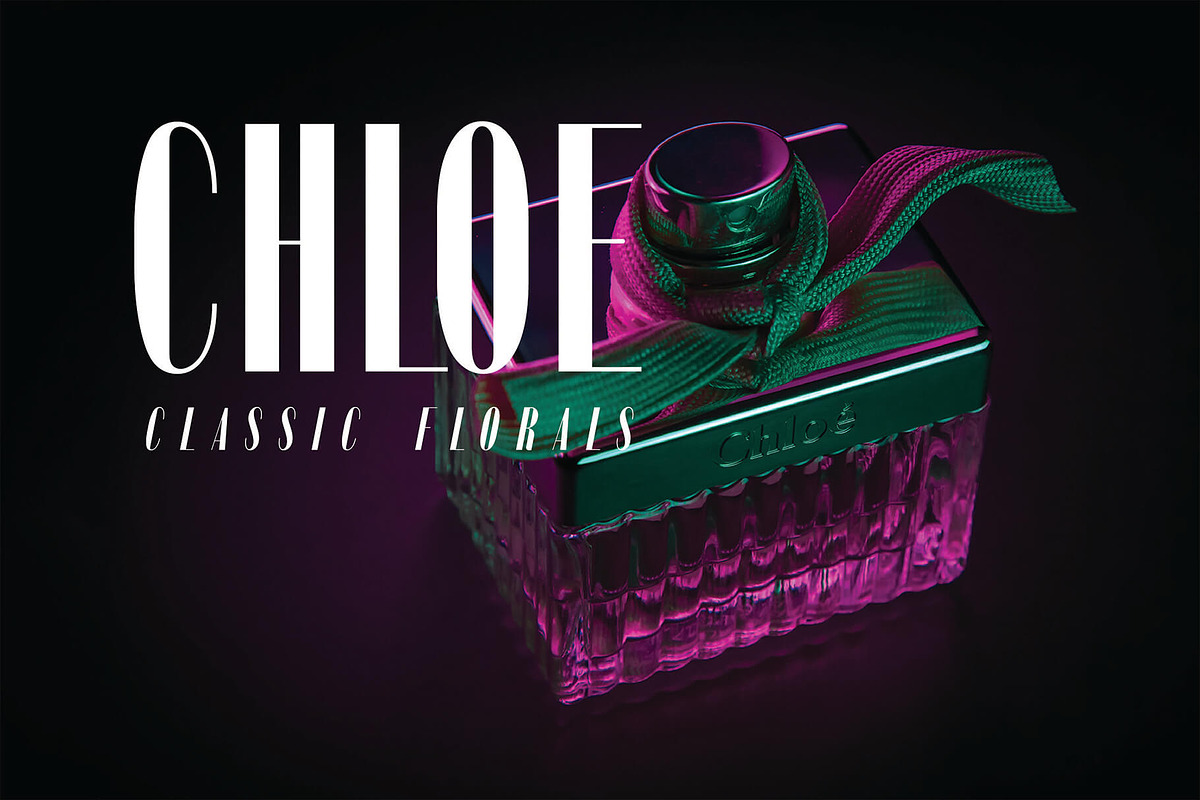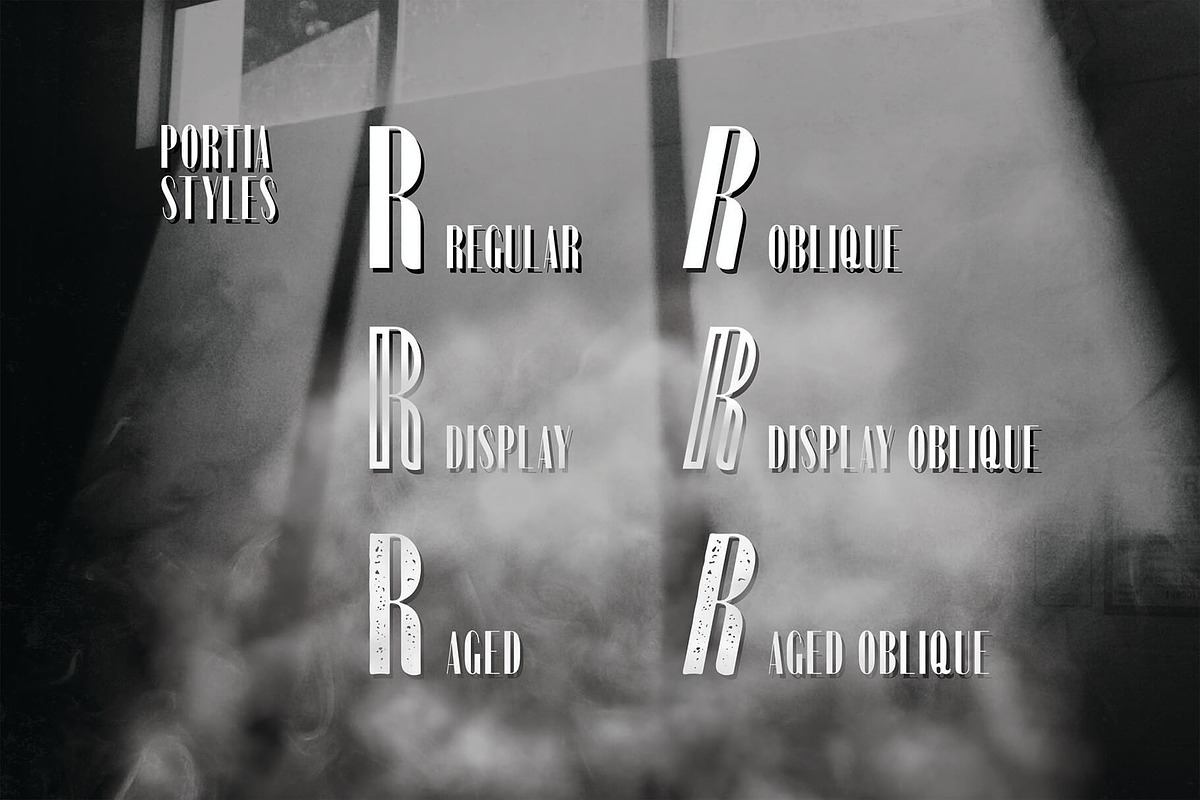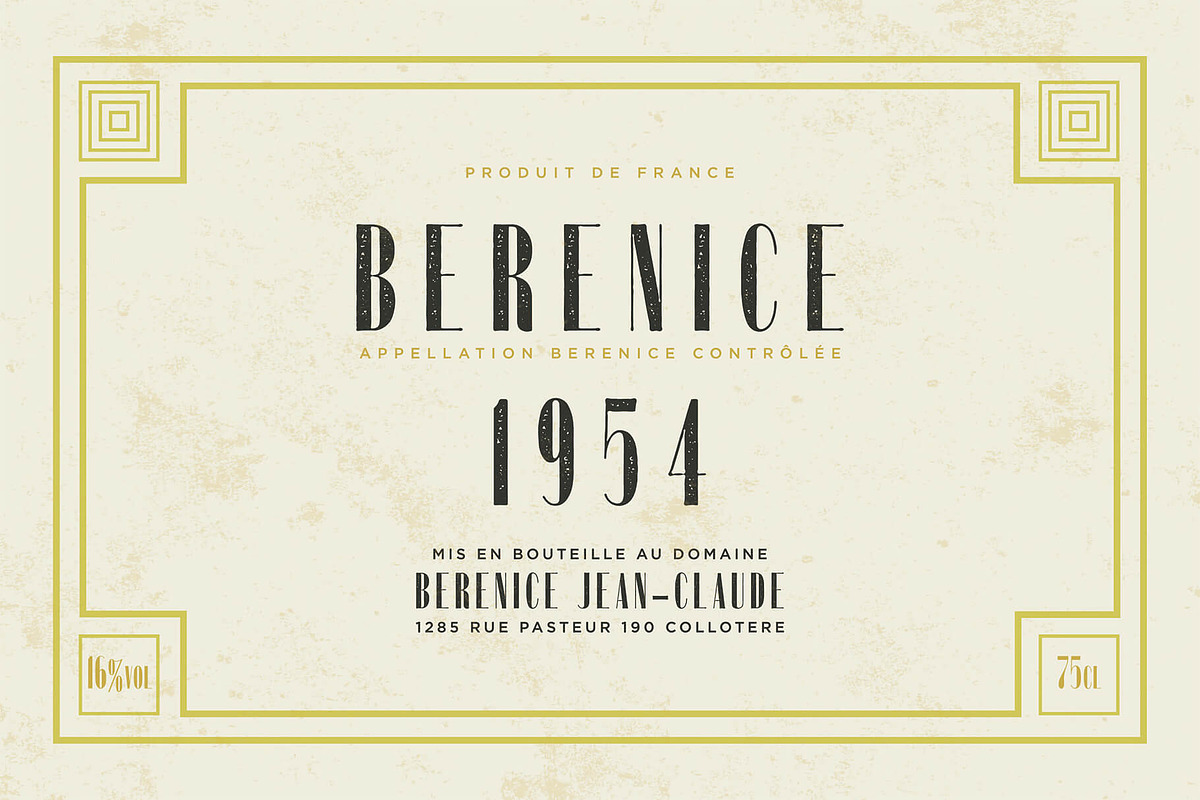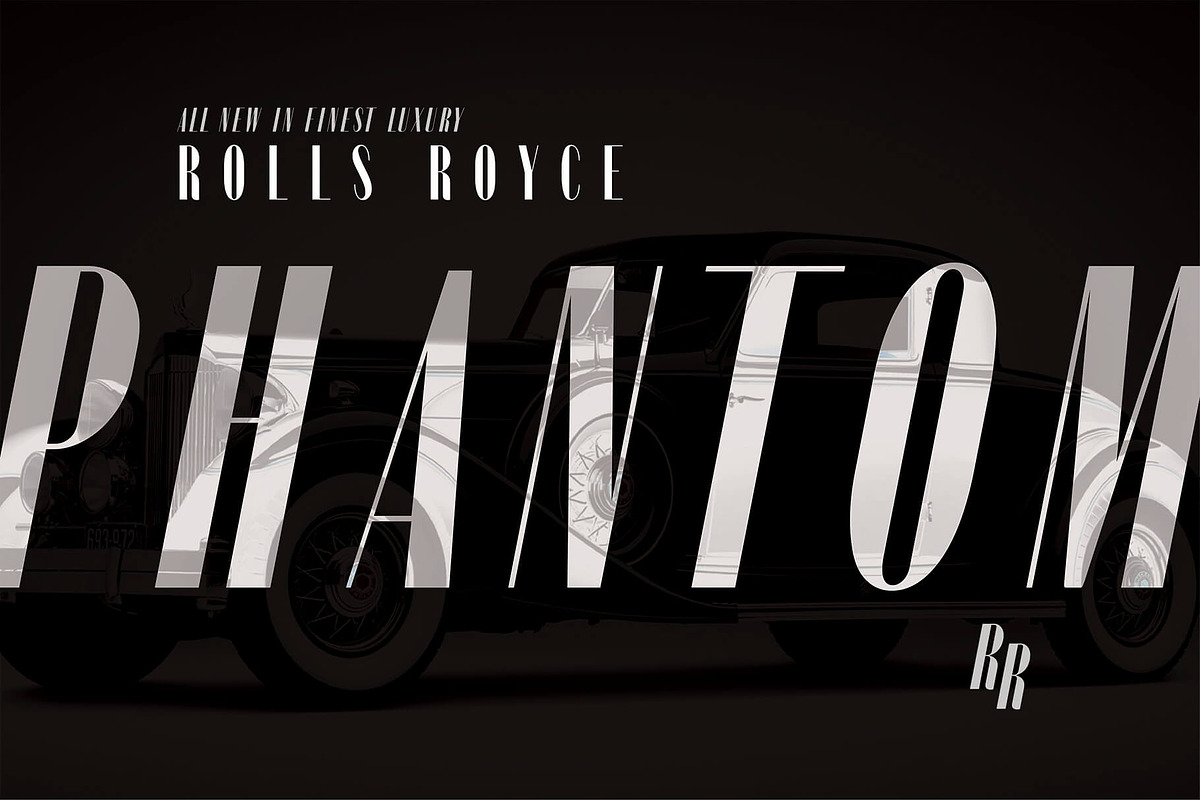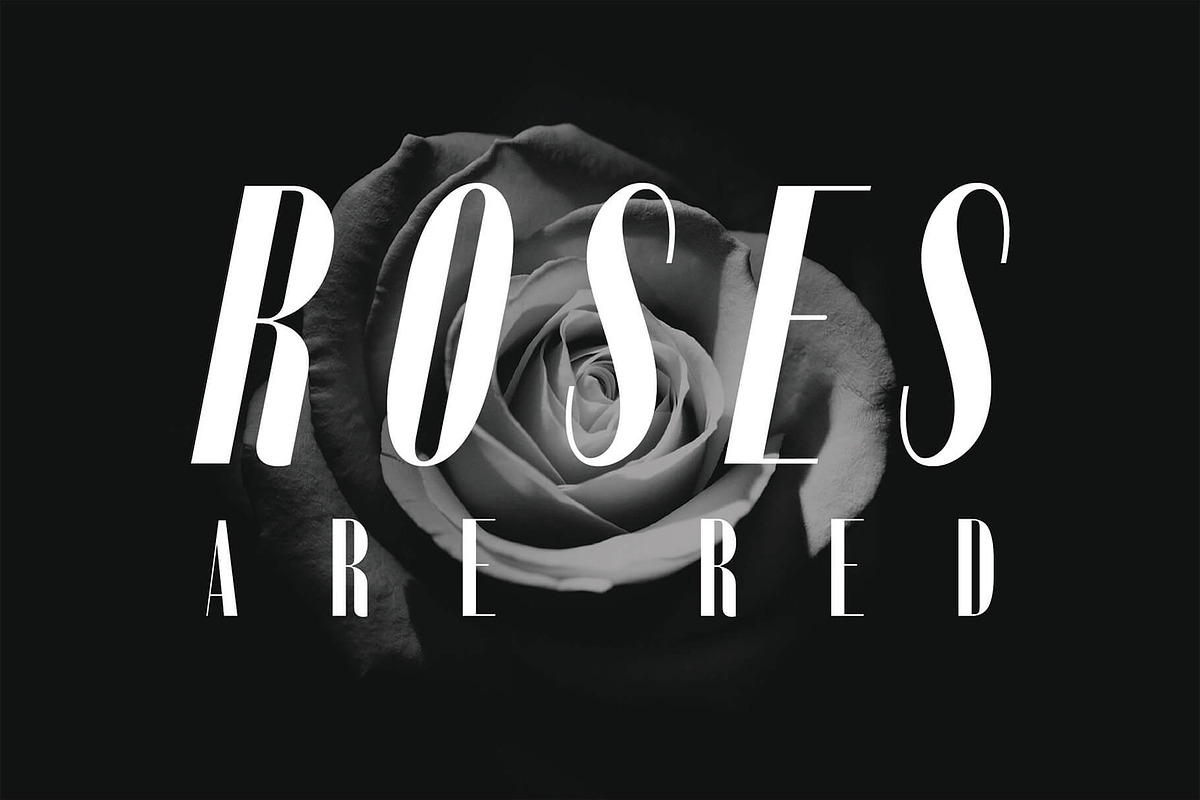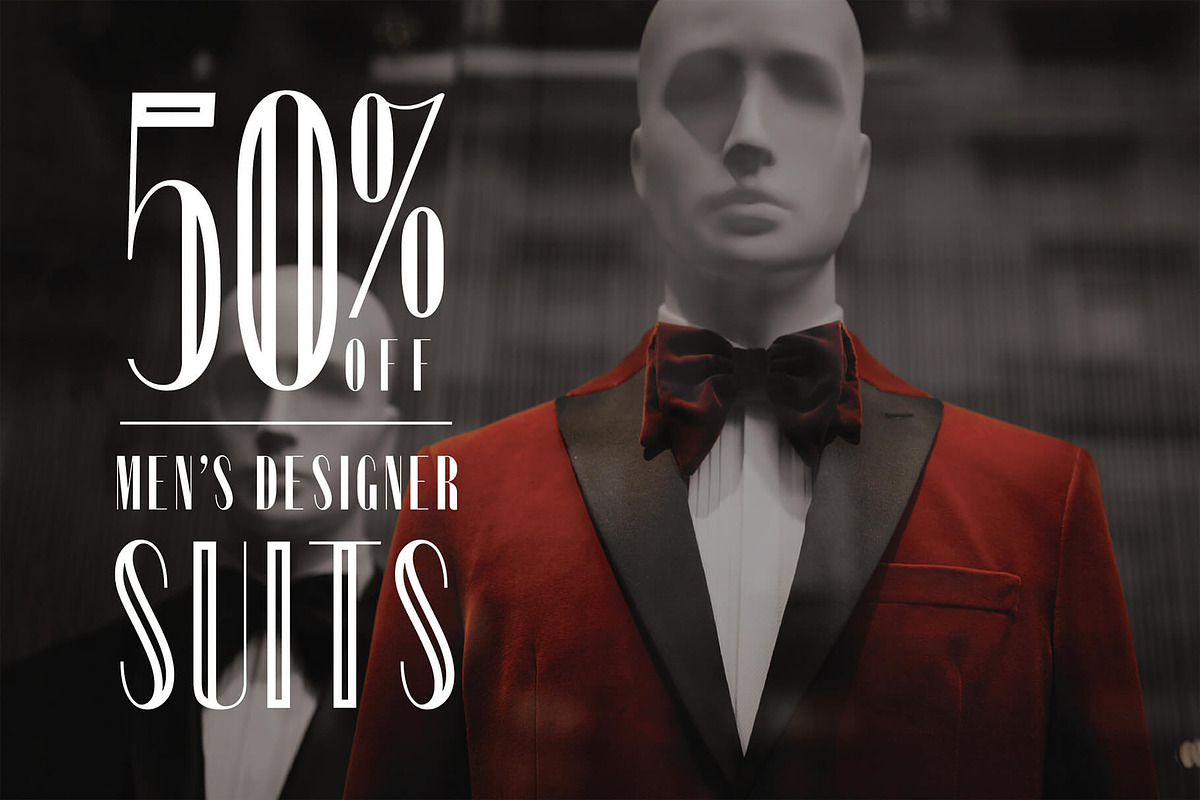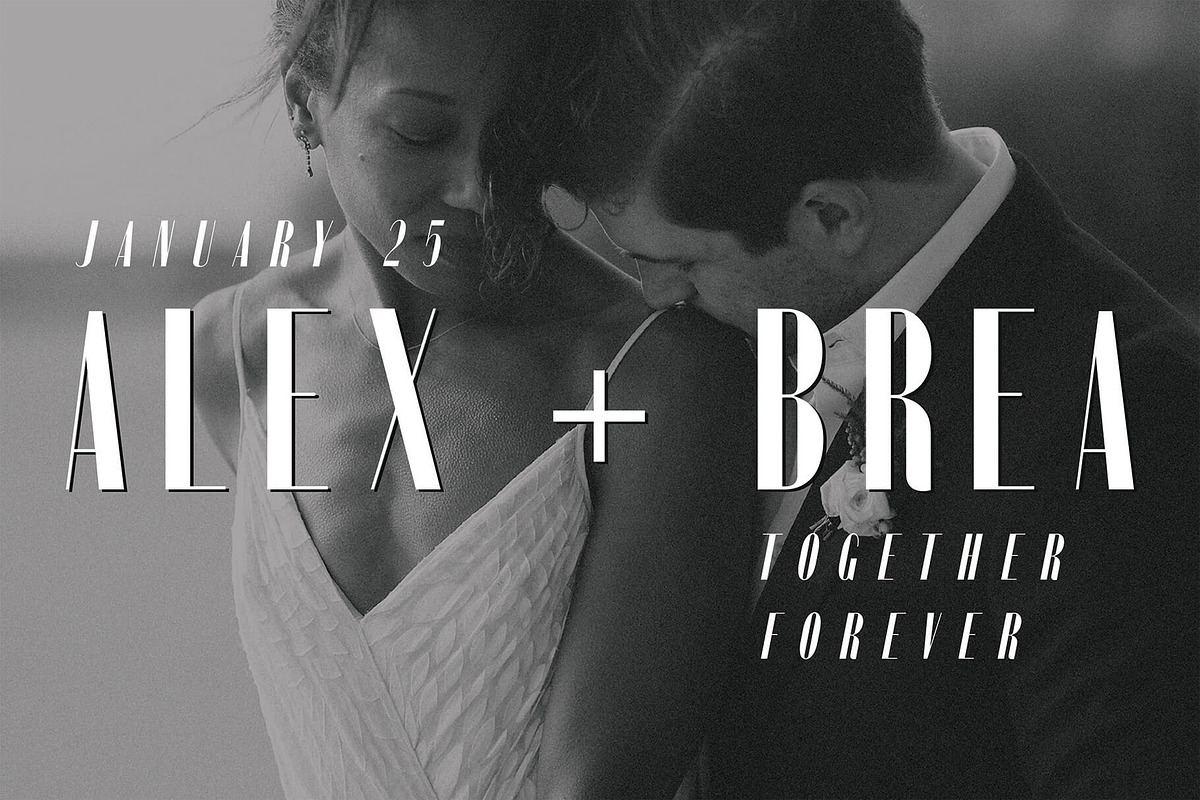
Portia | Film Noir Inspired Font
Portia is a tall contemporary typeface inspired by the film noir genre. It is a versatile, easy-to-use font and a great addition to any font collection. It is best used for branding, print design, title headings & so much more. Download it now!
A well crafted tall sans serif typeface.
Four Styles to choose from
- Portia Regular
- Portia Oblique
- Portia Aged
- Portia Display
- Portia AgedOblique
- Portia Display Oblique